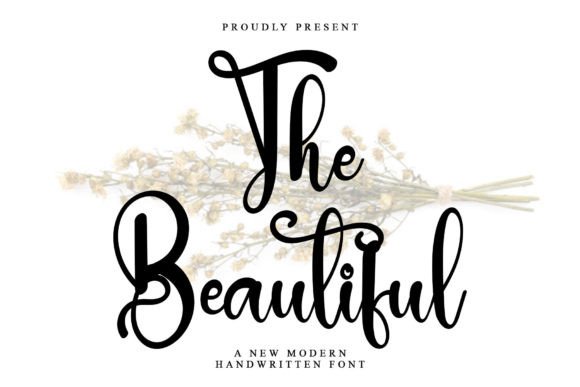
Prepare yourself to be awe-inspired by The Beautiful Font, a script font family that epitomizes elegance and sophistication, meticulously crafted by Inermedia STUDIO, a name synonymous with creative excellence.
The Beautiful is not just a font; it's an artistic masterpiece that captures the essence of timeless calligraphy, seamlessly blending tradition with modernity. Its meticulously crafted strokes exude an air of grace and charm, promising to elevate your designs to unprecedented heights of beauty and distinction.
With its balanced and varied design, The Beautiful is a versatile chameleon, effortlessly adapting to a myriad of creative projects. Whether you're crafting captivating business flyers, enchanting wedding invitations, or adding a touch of allure to your social media posts, this font will effortlessly elevate your words, transforming them into visual masterpieces.
Immerse yourself in the world of The Beautiful and discover a treasure trove of glyphs and ligatures, accessible with effortless ease thanks to its PUA encoding. Unleash your creativity and explore the endless possibilities, crafting designs that captivate and inspire, leaving an indelible mark on the hearts and minds of your audience.